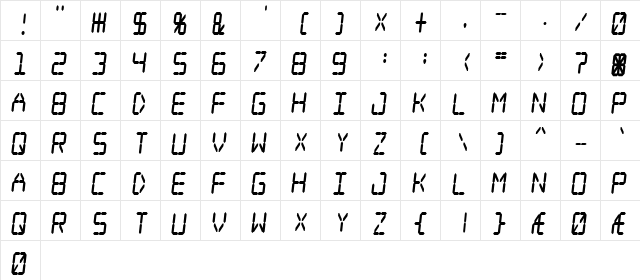
Digital dream Fat Skew Narrow Regular
Design Context for Digital dream Fat Skew Narrow Typeface
Digital dream Fat Skew Narrow channels digital-age aesthetics through its sharp, structured letterforms — ideal for brands that want to signal innovation. Its narrow stance lets it pack a punch even in space-constrained designs.
Pro Tip: Try Digital dream Fat Skew Narrow with generous letter-spacing in UI labels and navigation — the geometric forms benefit from room to breathe.